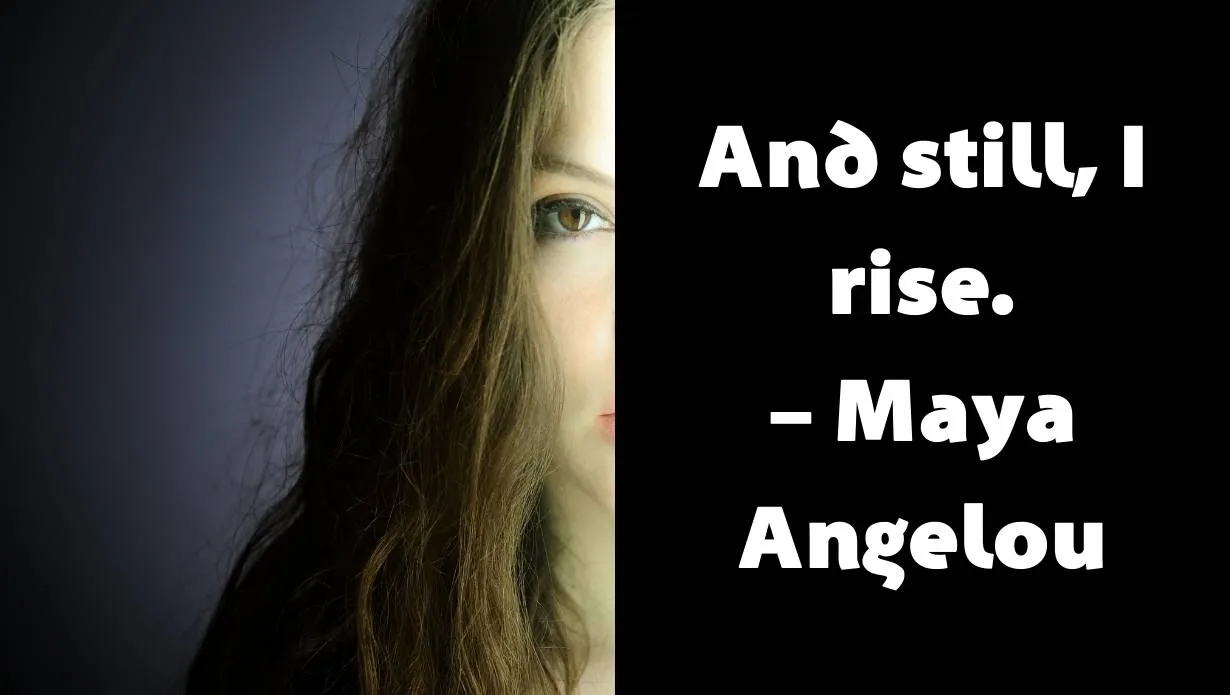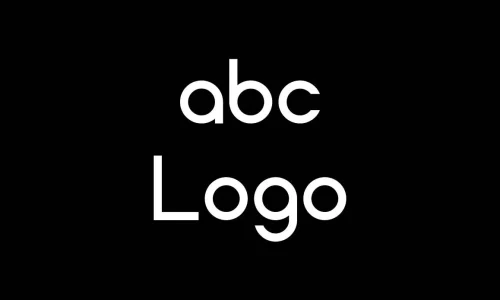
We are going to produce a very famous and popular typeface that is known by the name Starbucks Logo Font. This typeface has been seen in many different places. It is used by the Starbucks coffee company on their products and merchandise. This attractive typeface was developed by Manfred Klein. It belongs to the Sans-Serif Typeface.
It is very popular and has been used by many different people and organizations. You can also use its similar Fox Sans Font.
It is also used in advertising and branding by other companies. And, it has even been used in films and television shows. This Font is a very distinctive and easily recognizable typeface.